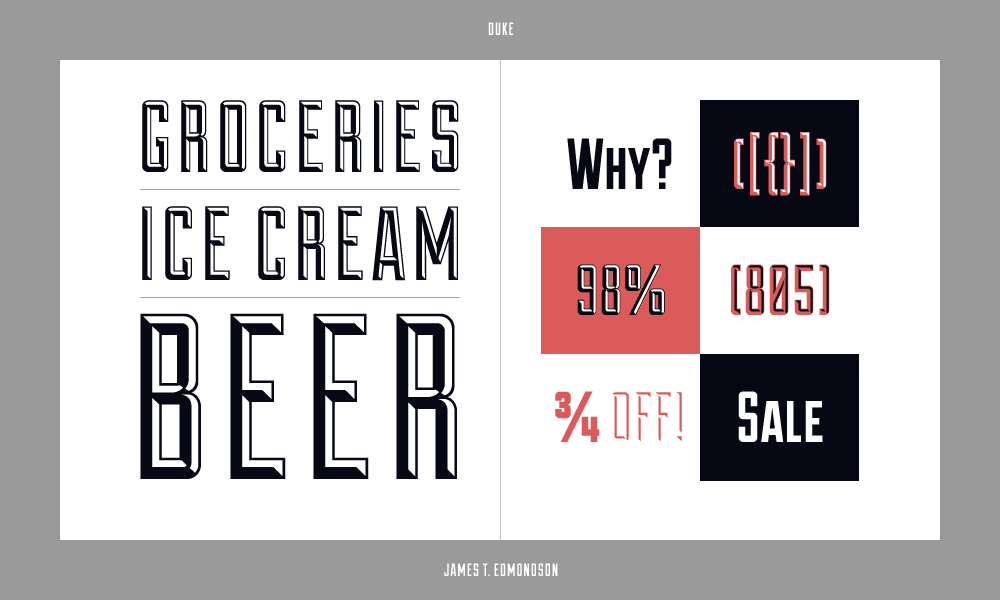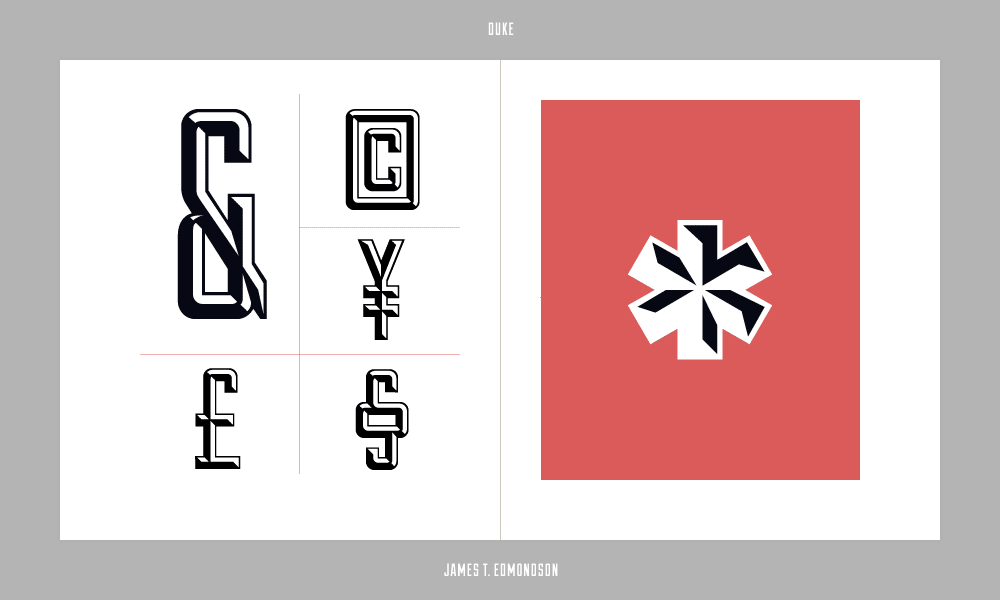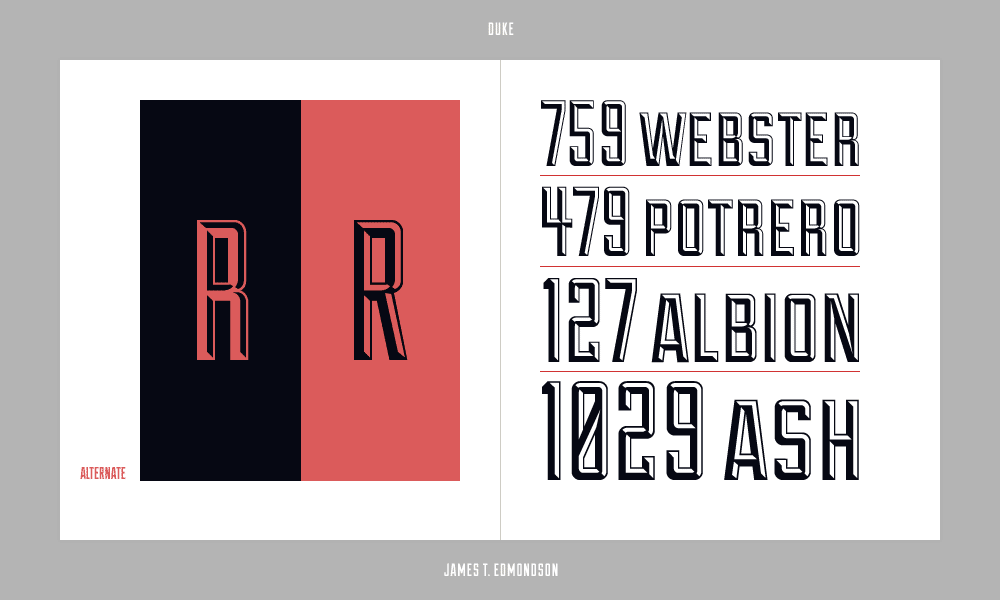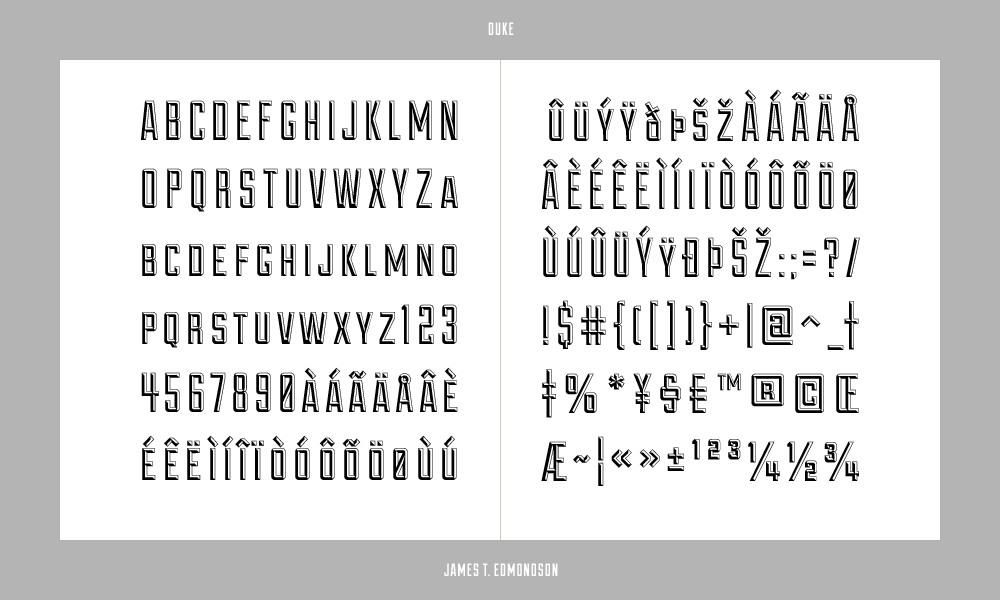
Duke
A Chiseled Typeface
Based on the signage for the Cup and Saucer Luncheonette in New York, Duke features three layers: Fill, Shadow, and Fill+Shadow.
Designed by James T. Edmondson